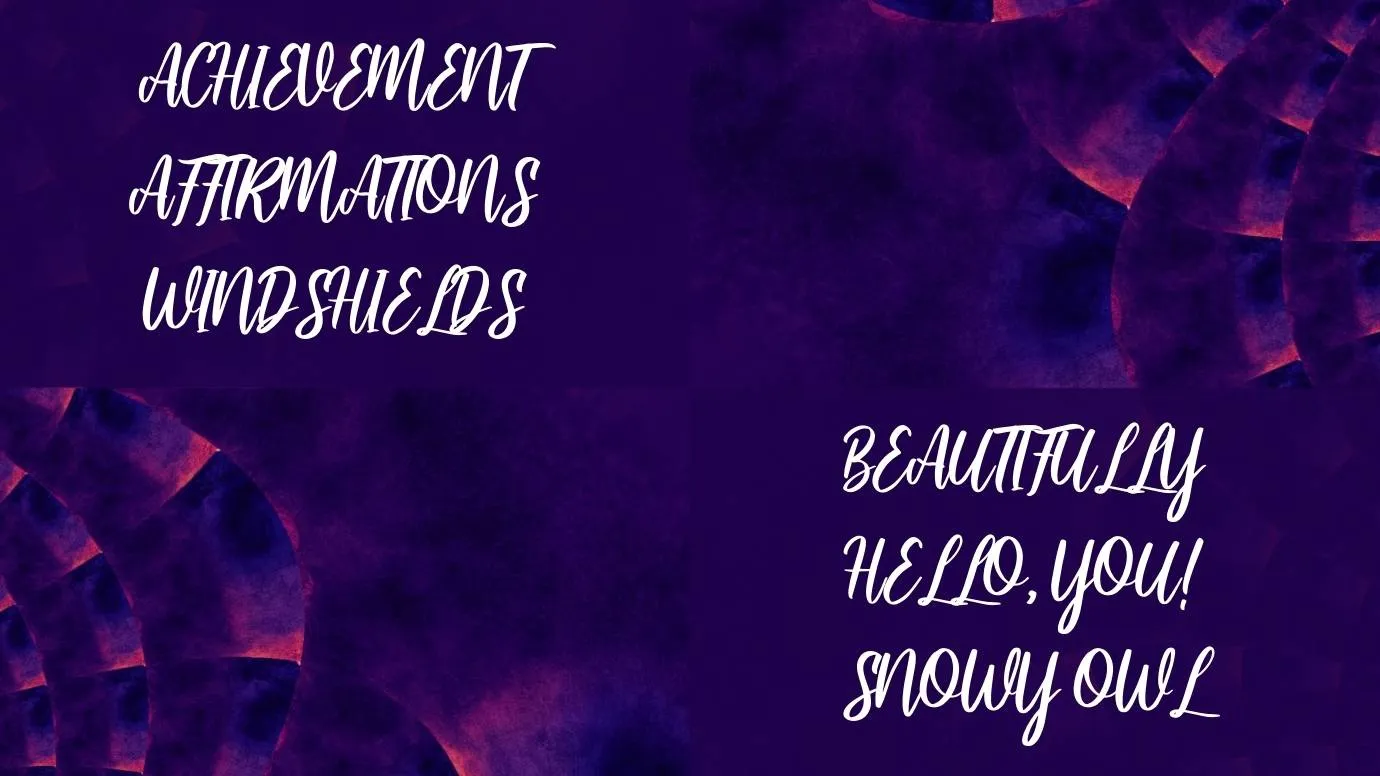
Raustila Font is a group member of the Script typeface family, the style of this texture is calligraphy. This texture had created by Finnish typeface designer Alit Suarnegara. It was released in the 21st century.
The font is based on the letterforms of early 20th century German typefaces, with a particular focus on the calligraphy design of that period. This has described the typeface as “a bit stiff, a bit brutal, but very honest”.
This font has been well-received by critics and has been used by a number of high-profile brands, including MTV, Wired, and The Guardian.
This font is a great choice for use in graphic designing, logos, and other typographic elements. Its distinctive style makes it perfect for projects that require a bit of extra flair. You can use this texture for homeware designs. This is the best font style for wedding invitations and party cards.
Designer of Raustila Font
This is a member of the script typeface family, which is designed by Alit Suarnegara. This is a famous and principal designer for font design.
This font style is created with a unique and consistent style. This single attractive style is a mixture of characteristics, including punctuations, Capital alphabets, a Small alphabet, symbols, special characters, numbers, glyphs, and a large number of language support.
| Style | Calligraphy |
| Designer | Alit suarnegara |